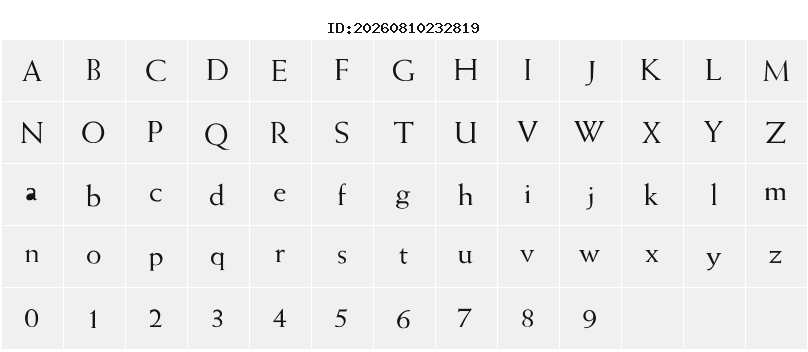
Ruth.ttf is a modern, elegant sans-serif font designed for ultimate readability and visual harmony. Perfect for branding, headlines, web design, and print materials.